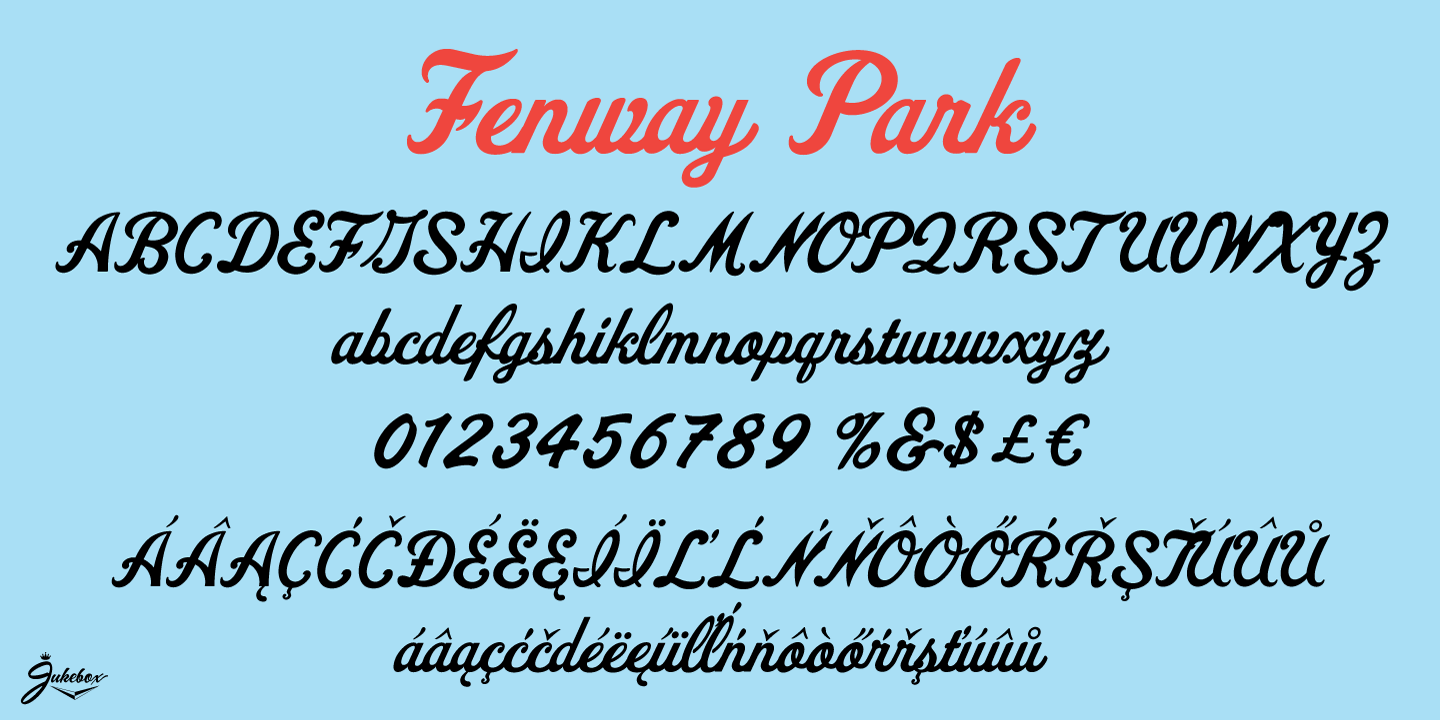
The Fenway Park JF Font is excellent for authentic baseball-themed design projects including sports team branding, ballpark signage, vintage baseball memorabilia, stadium advertisements, sports bar decor, baseball card designs, athletic merchandise, and nostalgic Americana materials. This classic typeface brings genuine baseball heritage and iconic stadium atmosphere to any design project celebrating America's favorite pastime and sports tradition.
What makes Fenway Park JF Font so exciting is its authentic capture of classic American ballpark aesthetics with letterforms that evoke the timeless spirit of baseball's golden era and iconic stadium culture. The letters feature traditional sports-inspired characteristics with vintage athletic appeal that creates an immediate sense of nostalgia and authentic baseball heritage. This distinctive ballpark character makes it perfect for brands and projects that want to communicate sports tradition, American heritage, and the enduring appeal of baseball culture.
The Fenway Park JF Font family typically includes regular and bold variations, often with distressed and vintage effects that enhance its authentic ballpark atmosphere. Many versions feature baseball symbols, stadium-inspired elements, and classic athletic numerals that provide designers with genuine sports branding solutions.
Whether you're designing for sports organizations, baseball-themed venues, or Americana brands, Fenway Park JF Font Free Download offers the perfect solution for projects that need to capture the spirit of classic American baseball. This font transforms ordinary text into nostalgic ballpark designs that immediately communicate sports heritage, athletic tradition, and the timeless appeal of baseball culture to fans and sports enthusiasts.